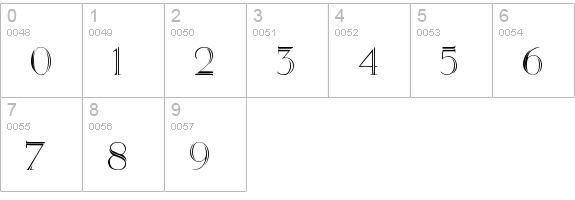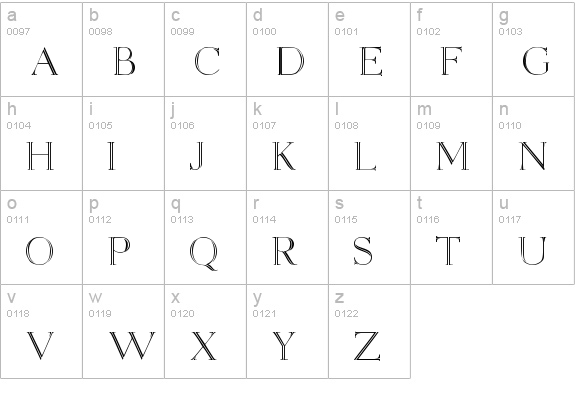
Elizabeth Regular is the standard, neutral variant in the Elizabeth typeface family \xE2\x80\x94 well suited to general body text, paragraphs, and standard typographic work.
Elizabeth Regular font is a charming and elegant typeface that exudes classic sophistication. With its delicate lines and graceful curves, this font is perfect for adding a touch of timeless beauty to any project. Whether you're designing invitations, crafting a logo, or creating stunning graphics, Elizabeth Regular font is sure to make a lasting impression. The best part? Elizabeth Regular font is completely free to download at FontsMarket.com. Simply visit the website, locate the font, and start incorporating its beauty into your work today. Don't miss out on this amazing opportunity to elevate your designs with the exquisite Elizabeth Regular font, available for free at FontsMarket.com.